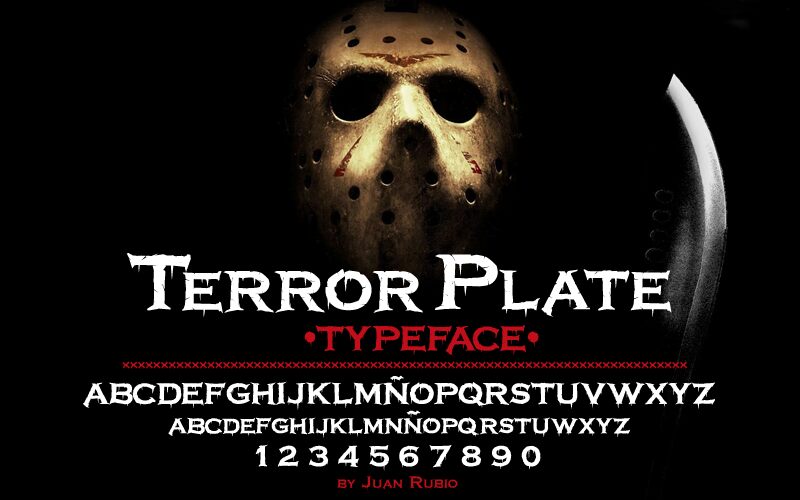
Terrorplate by Juan Rubio Marco is a free distorted horror display font with broad, jagged capitals. The letters have sharp, uneven projections and fractured cuts that resemble cracks through brittle metal. Their shifting widths and broken contours give the line a rough, unstable silhouette.
As a theatrical title, it suits horror posters, game covers, and heavy-metal merchandise, where the damaged shapes signal menace before any image appears. Crack patterns can continue into shattered-glass illustrations or distressed packaging graphics.